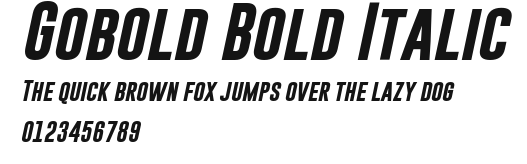
• Font Name: Gobold Bold Italic
• Font Style: Italique
• Designer: Situjuh Nazara
About Gobold Bold Italic.ttf
Gobold Bold Italic.ttf is a modern, elegant sans-serif font designed for ultimate readability and visual harmony. Perfect for branding, headlines, web design, and print materials.